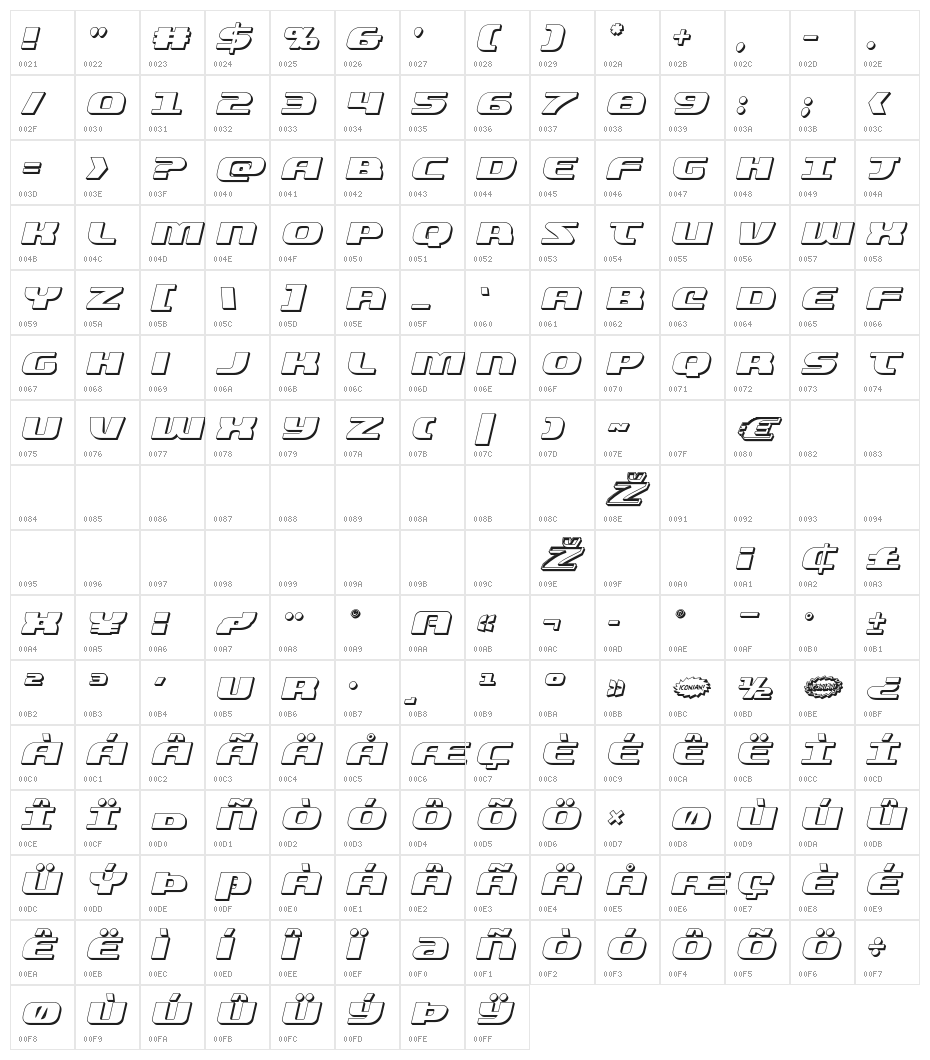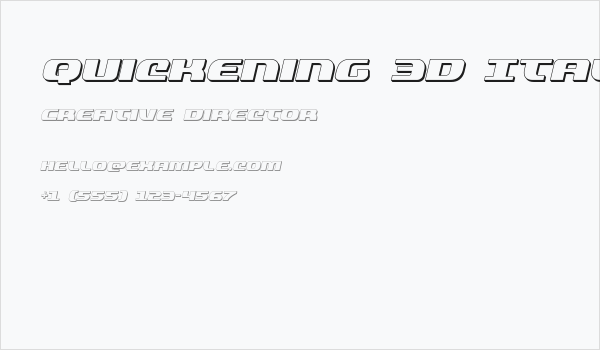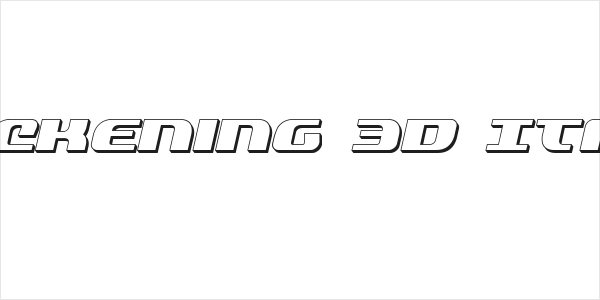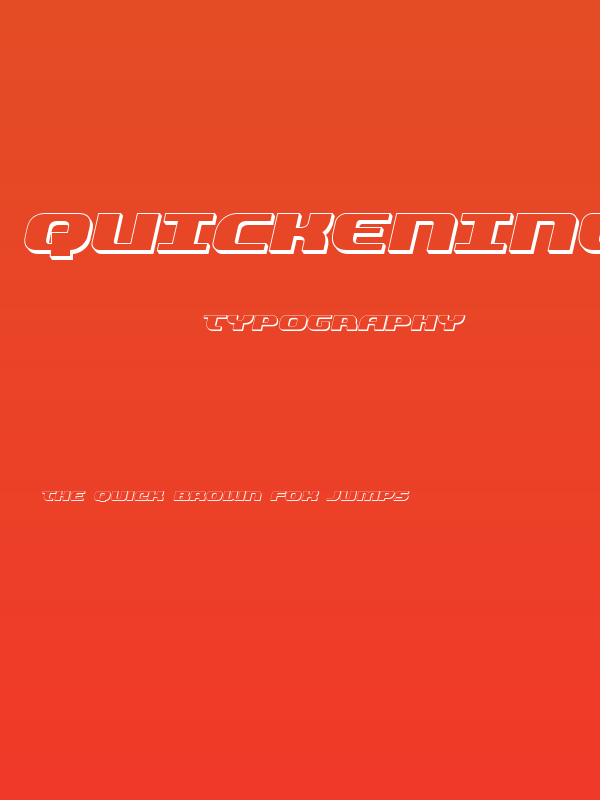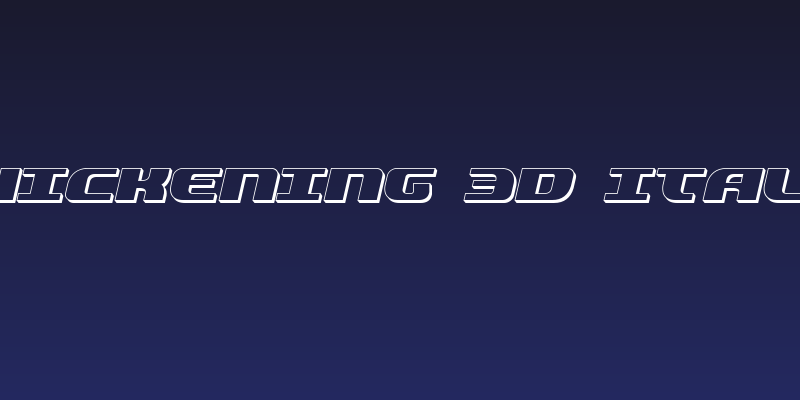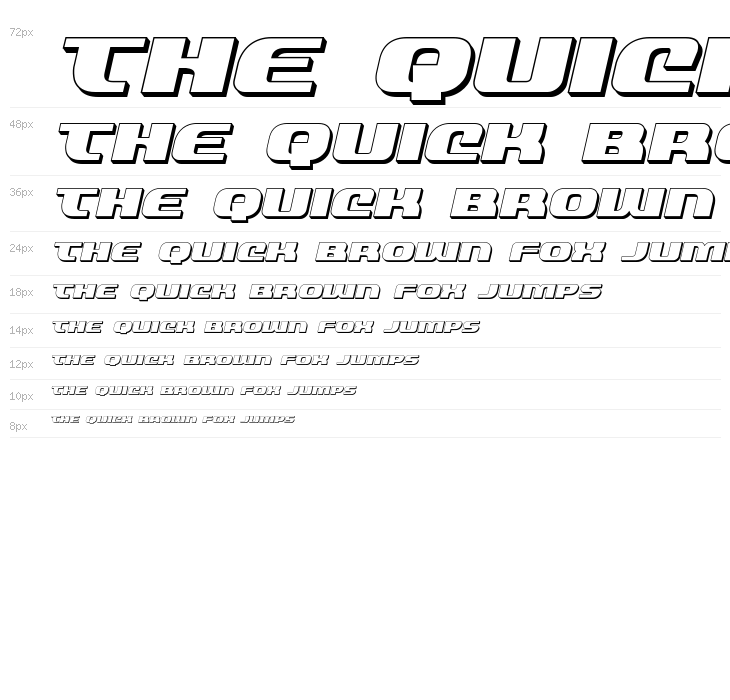
Quickening 3D Italic Font
Quickening 3D Italic Description
This font features a bold, three-dimensional style with an italic slant, giving it a dynamic and futuristic appearance. The characters are outlined, creating a sense of depth and movement. The uppercase and lowercase letters maintain a consistent width, while the numerals and special characters complement the overall design. The font's geometric structure and clean lines make it suitable for modern and tech-oriented projects. Its unique style is eye-catching and can be used to create a strong visual impact.
| Proposed Projects | Ideal for tech branding, video game titles, futuristic posters, and digital media. |